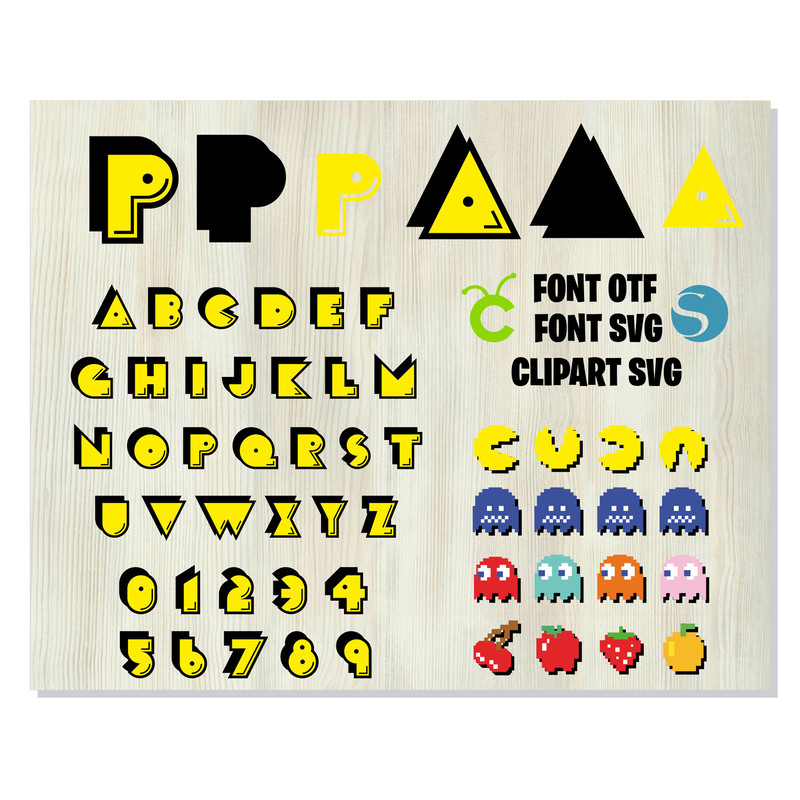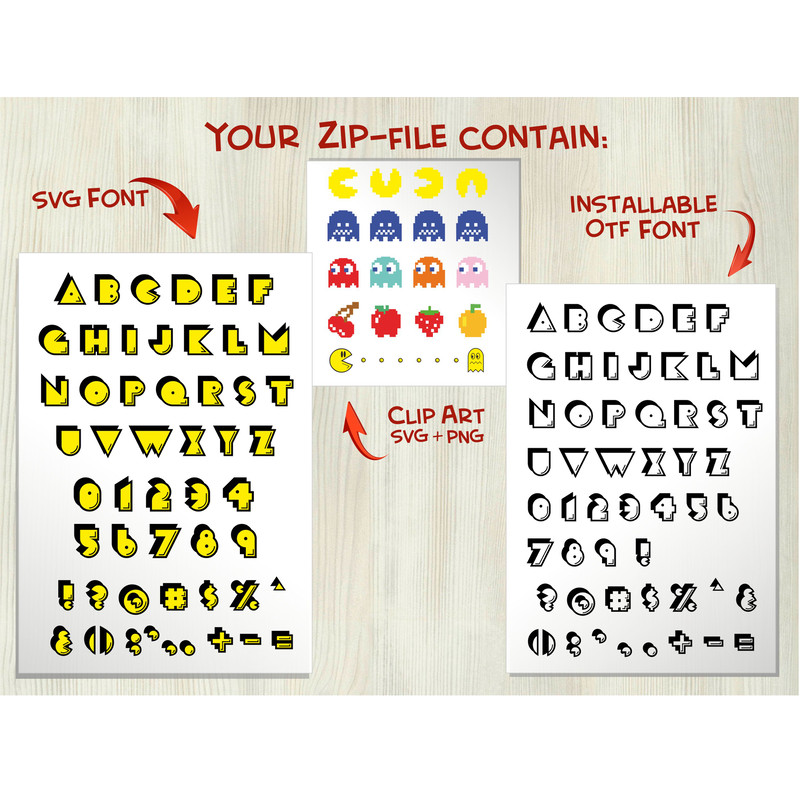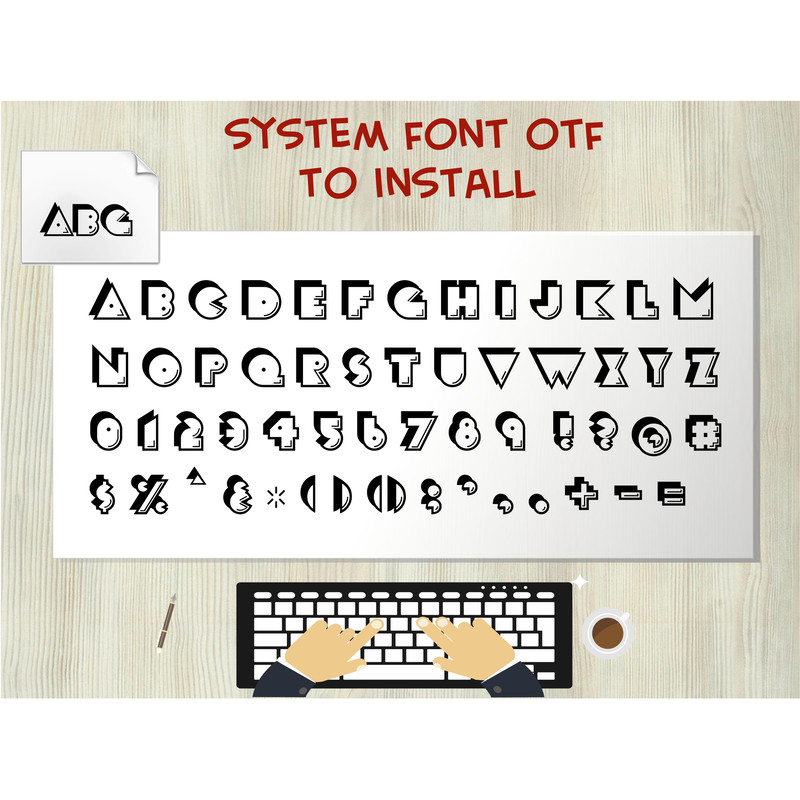
Pac Man Font SVG Cricut Layered, Pac-Man Font svg, Game svg, 80s font, Pacman letters svg
ARCADE VIDEO GAME Font, GAME Font SVG, GAME Font otf, GAME letters SVG, GAME Alphabet SVG, ARCADE GAME Cut Files, ARCADE GAME Font SVG, GAME SVG, 80s font